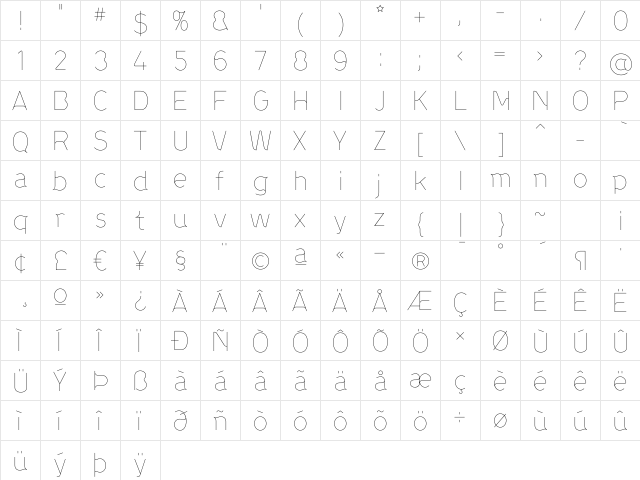
ProgressThin Regular
Design Context for ProgressThin Typeface
ProgressThin offers clean, dependable letterforms without strong stylistic allegiance, making it a practical choice for designers who need flexibility. Its slender proportions lend an understated elegance to any composition.
Pro Tip: Use ProgressThin in both headline and body roles to test its range before committing to a single application.